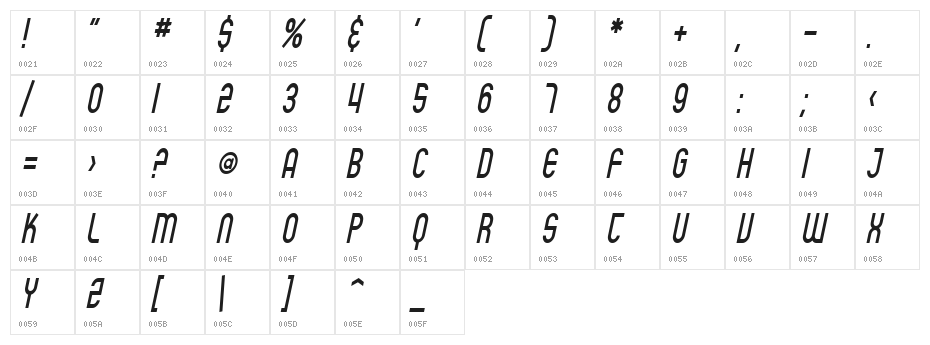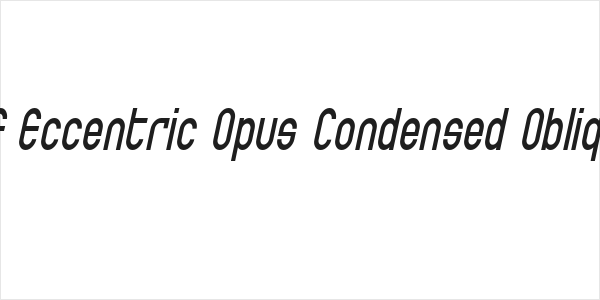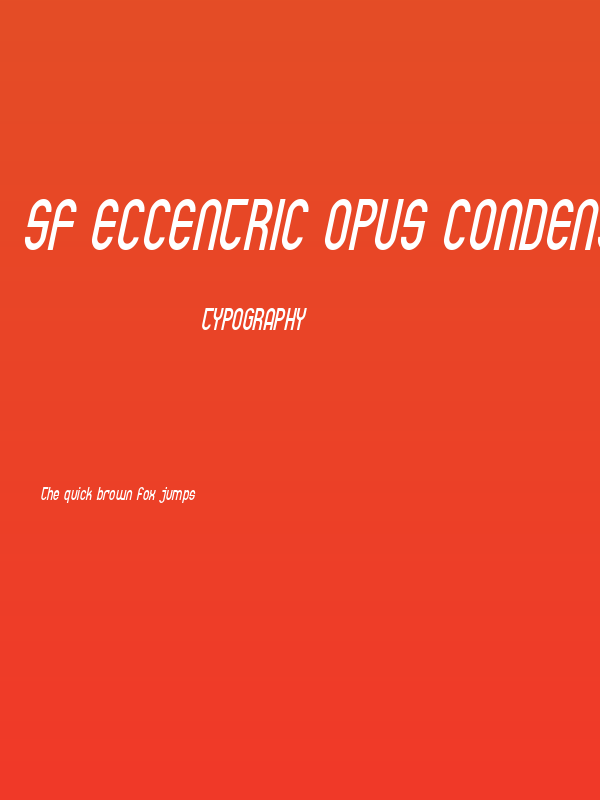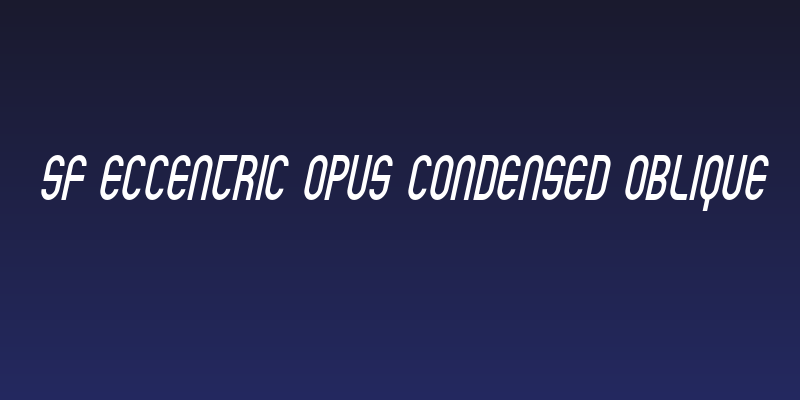
SF Eccentric Opus Condensed Oblique Font
SF Eccentric Opus Condensed Oblique Description
This font features a unique, condensed style with an oblique slant, giving it a dynamic and modern appearance. The characters are elongated and narrow, with a consistent stroke width that maintains readability while adding a touch of elegance. The uppercase and lowercase letters share a cohesive design, with smooth curves and sharp angles that create a visually appealing contrast. The numerals and special characters are designed to complement the letterforms, ensuring a harmonious overall look. This font's distinctive style makes it suitable for projects that require a bold and contemporary aesthetic.